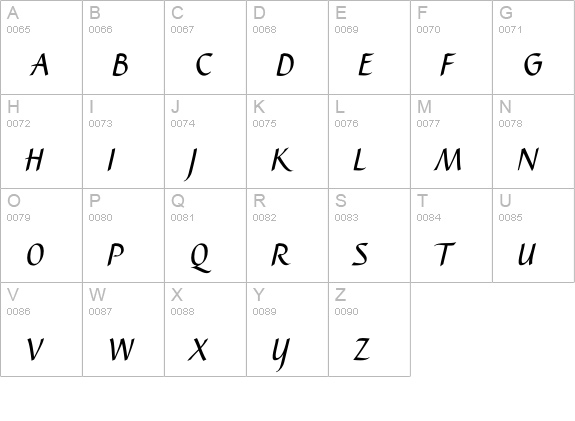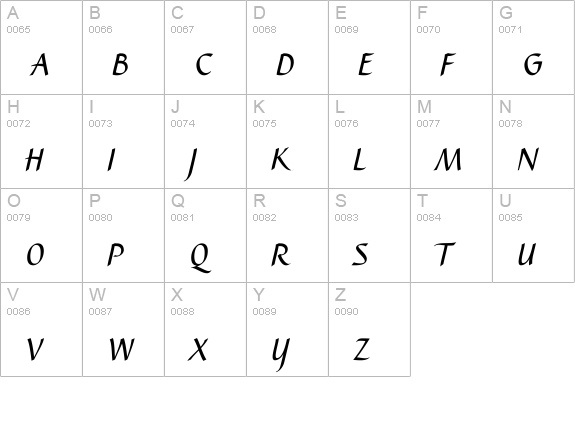
Caterina Italic Font Details
Caterina Italic is a distinctive, italic variant in the Caterina typeface family \xE2\x80\x94 well suited to design and typography projects.
Introducing Caterina Italic font - a sophisticated and elegant typeface that exudes charm and grace. The delicate curves and subtle slant of the letters create a sense of fluidity and movement, making it perfect for conveying a sense of refinement and sophistication in any design project. This beautiful font is not only visually appealing but also highly versatile, making it suitable for a wide range of applications, from branding and packaging to invitations and social media graphics. Its timeless and classic design ensures that it will never go out of style, making it a valuable addition to any designer's toolkit. Best of all, Caterina Italic font is available for free download at FontsMarket.com, allowing you to add this stunning typeface to your collection without breaking the bank. Don't miss out on the opportunity to enhance your designs with the elegance and beauty of Caterina Italic font - download it today and elevate your projects to new heights!